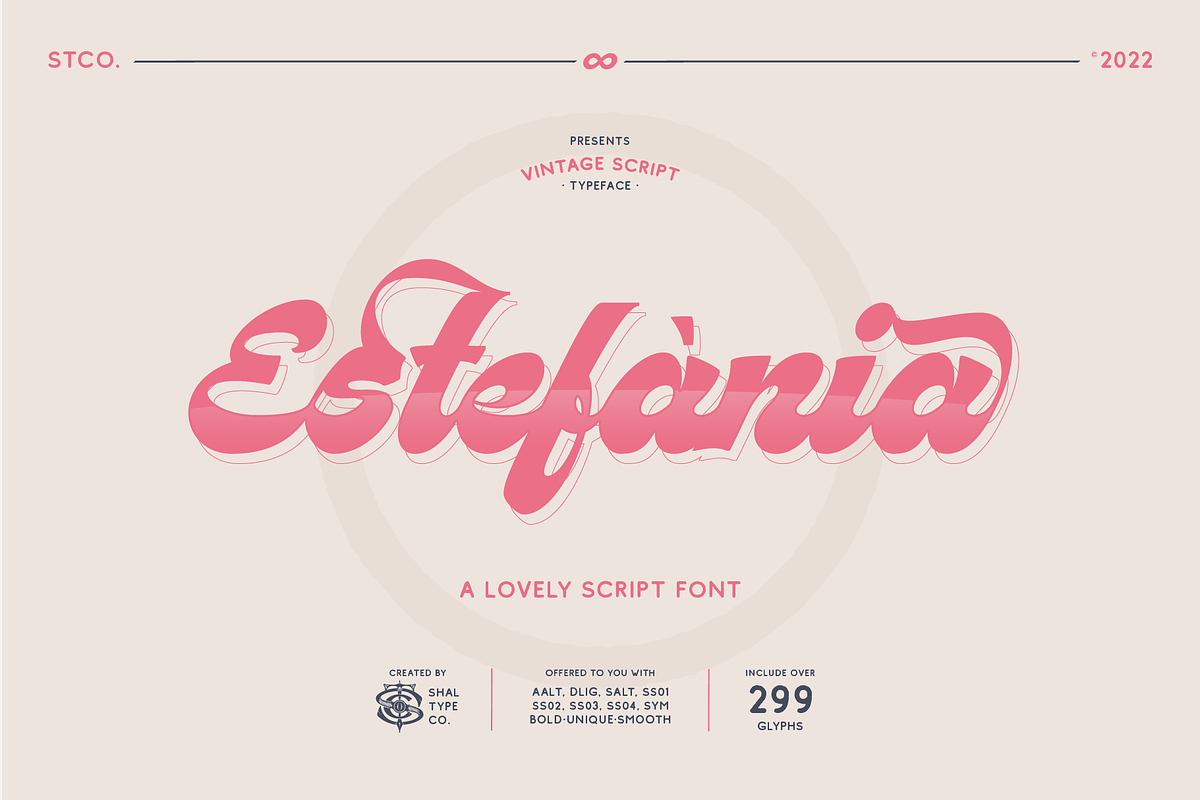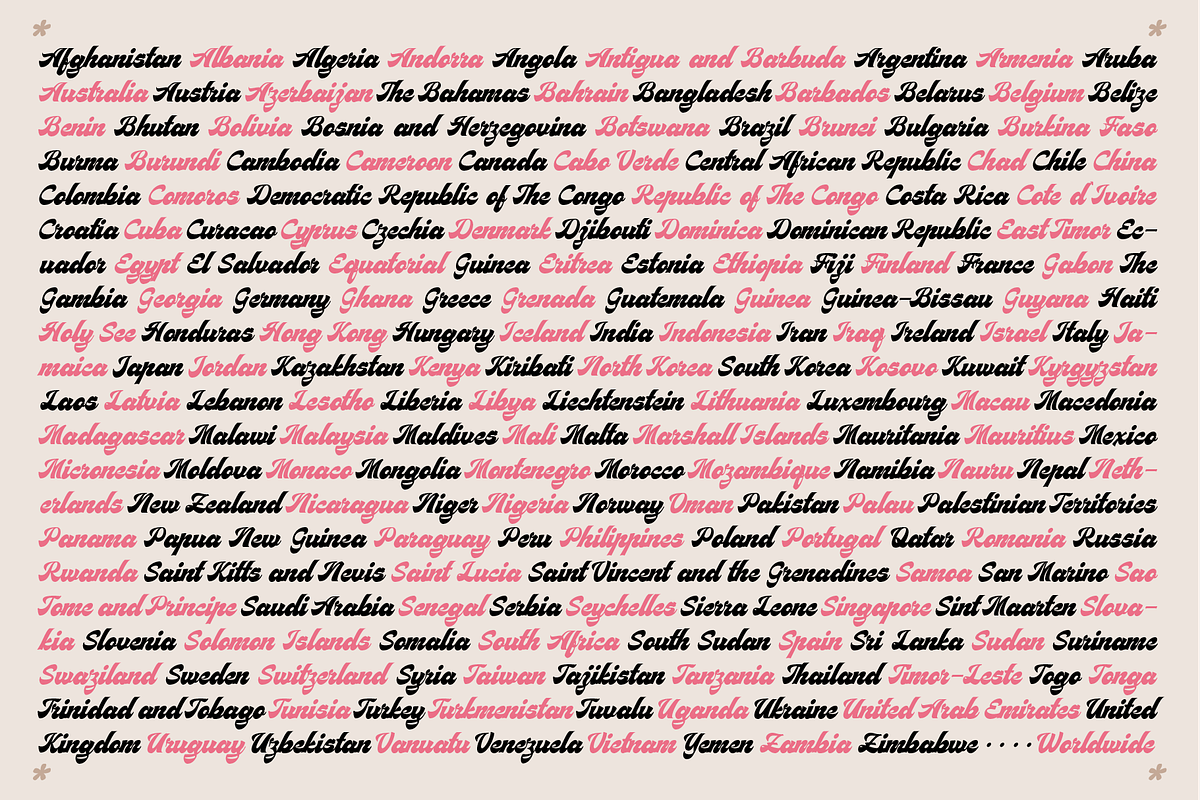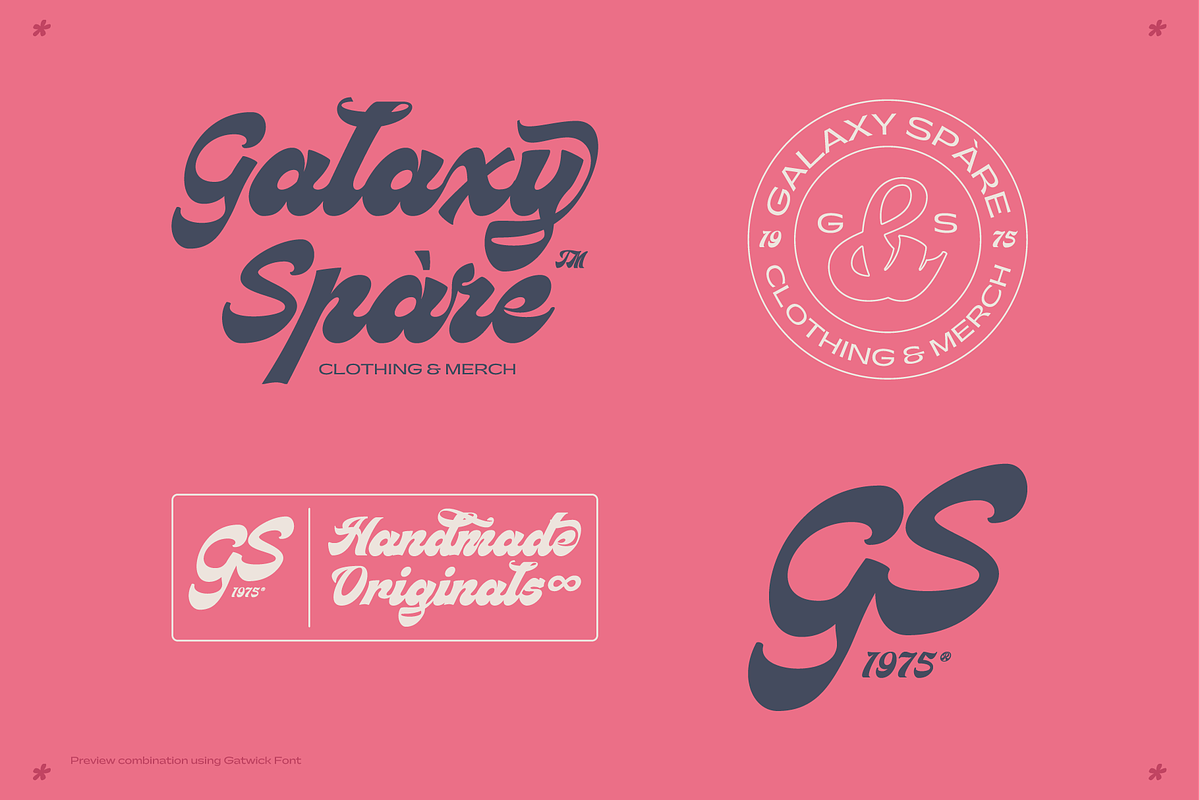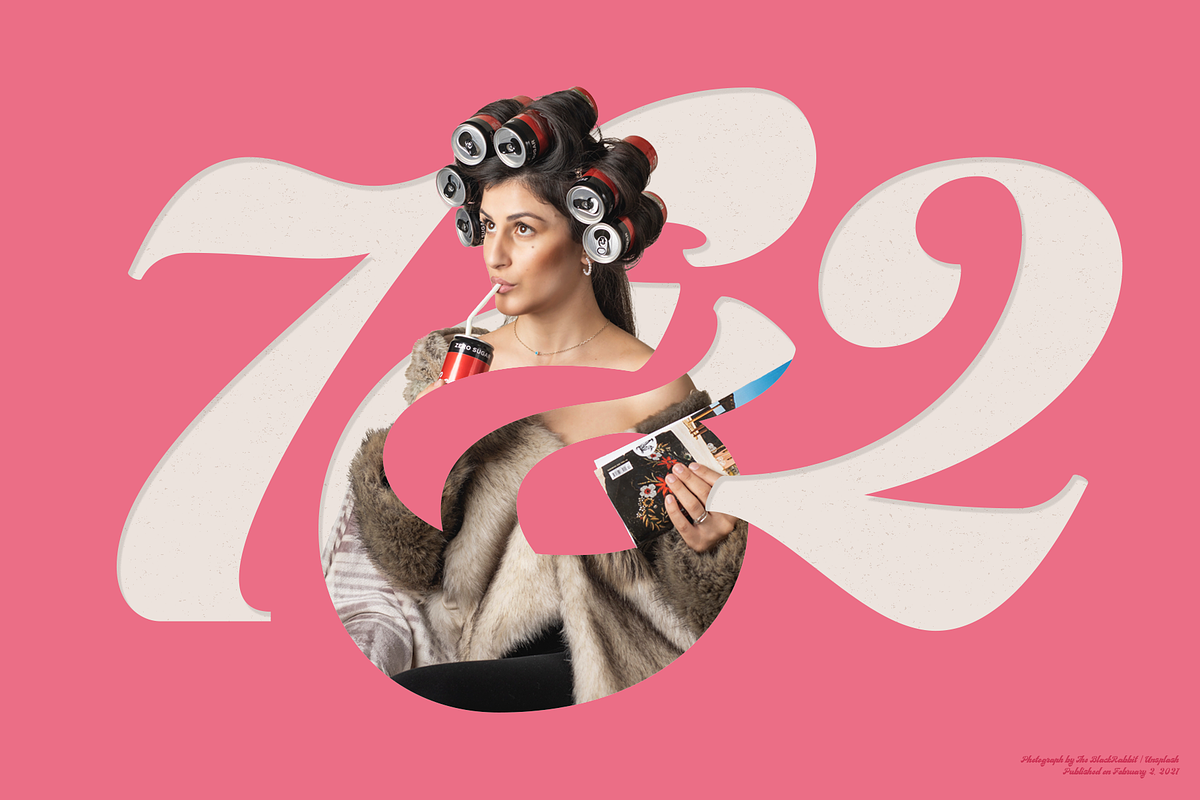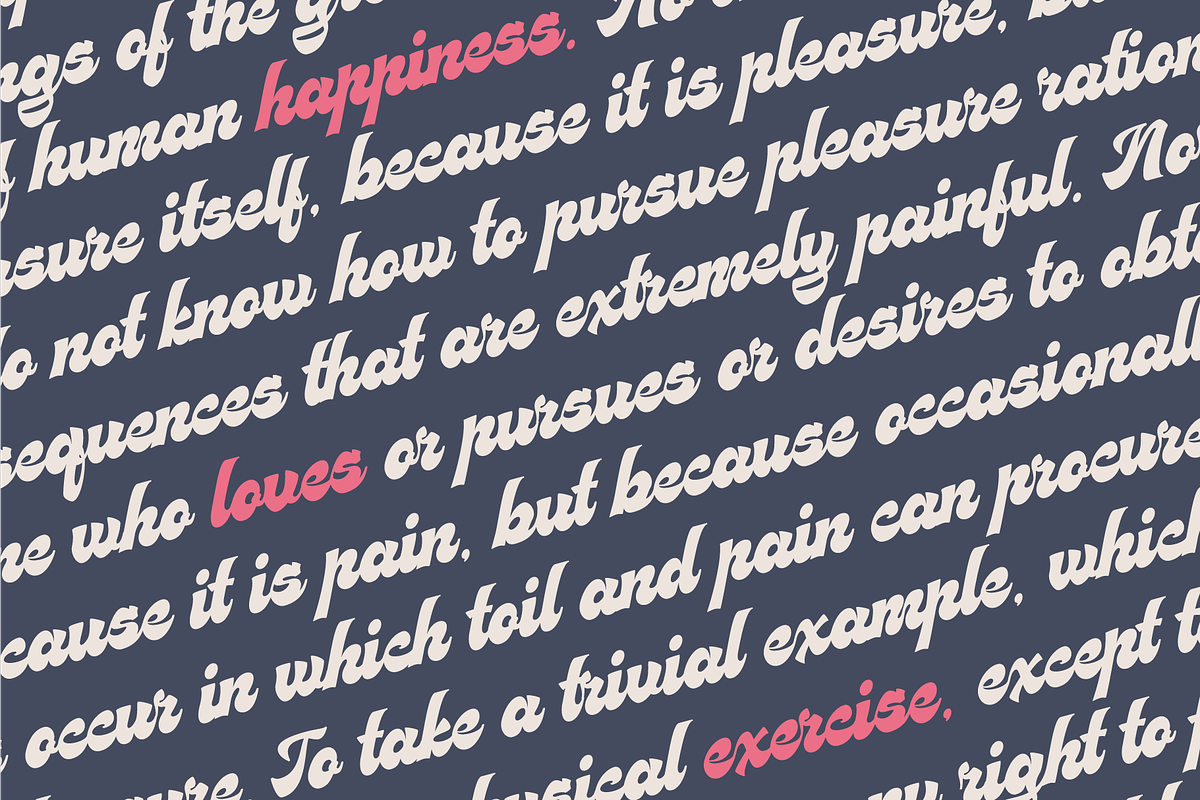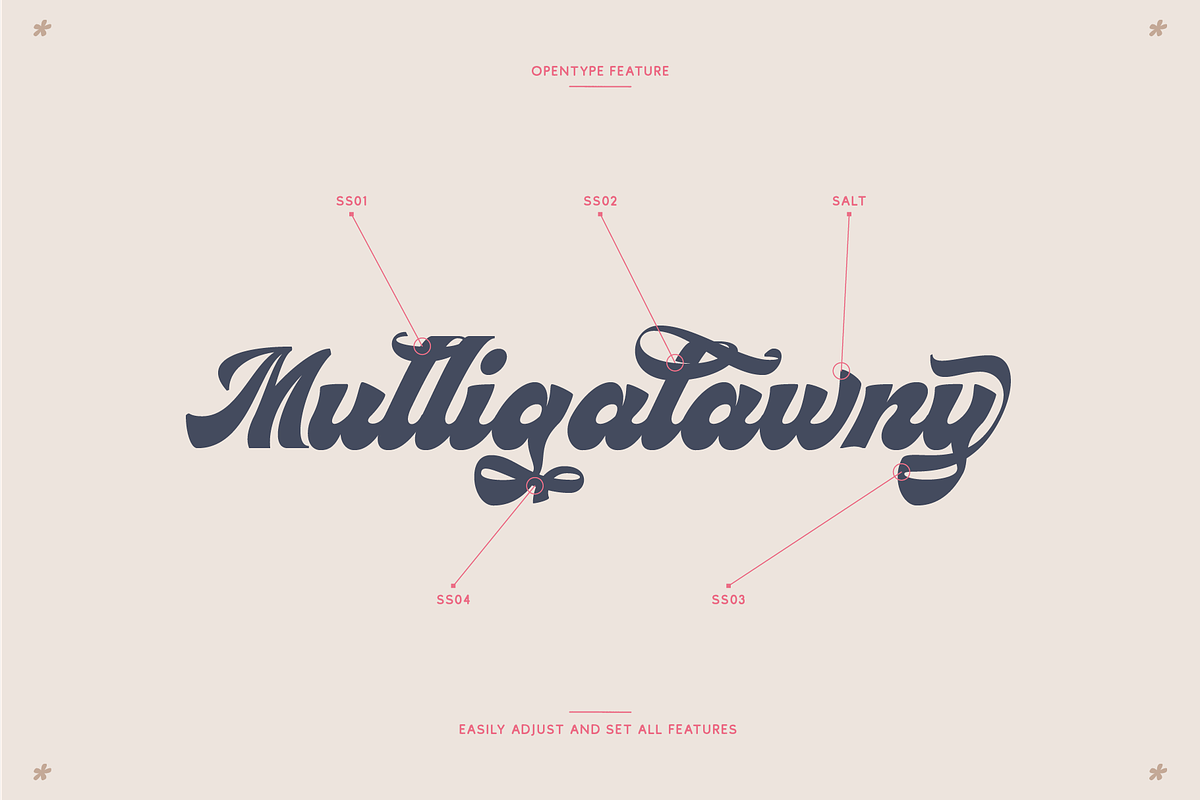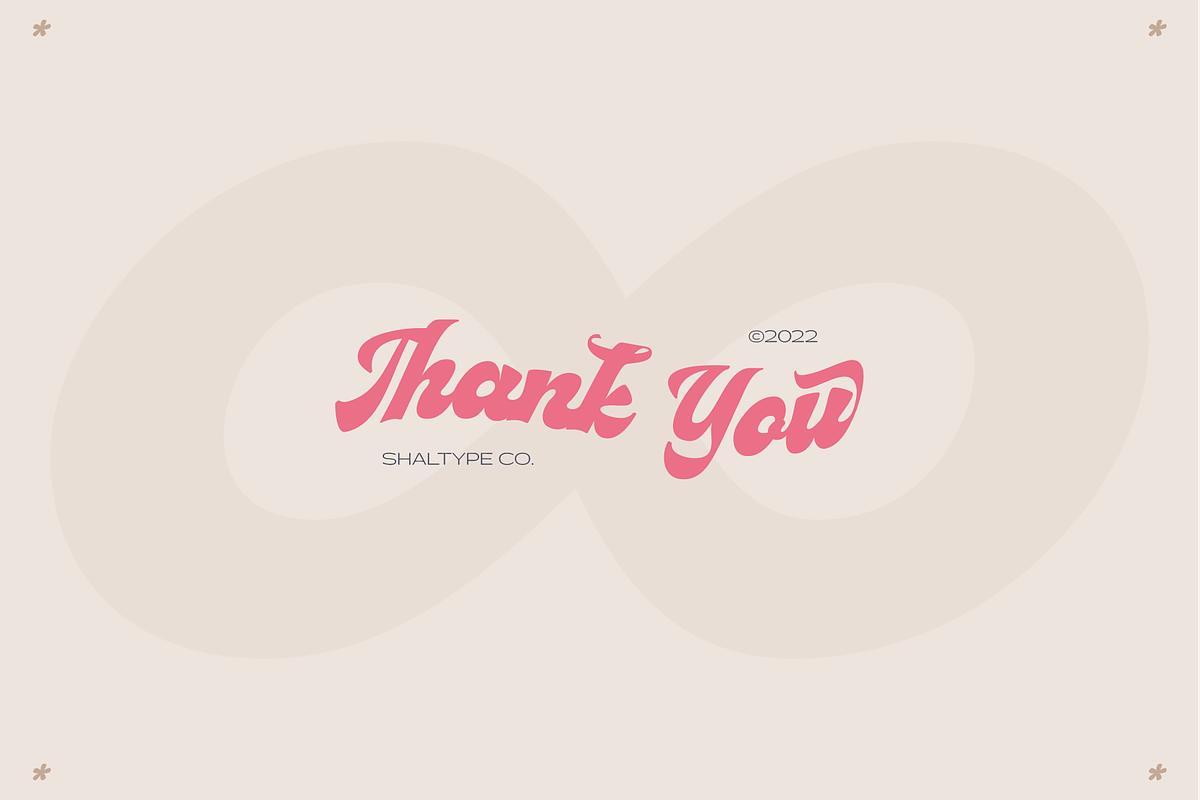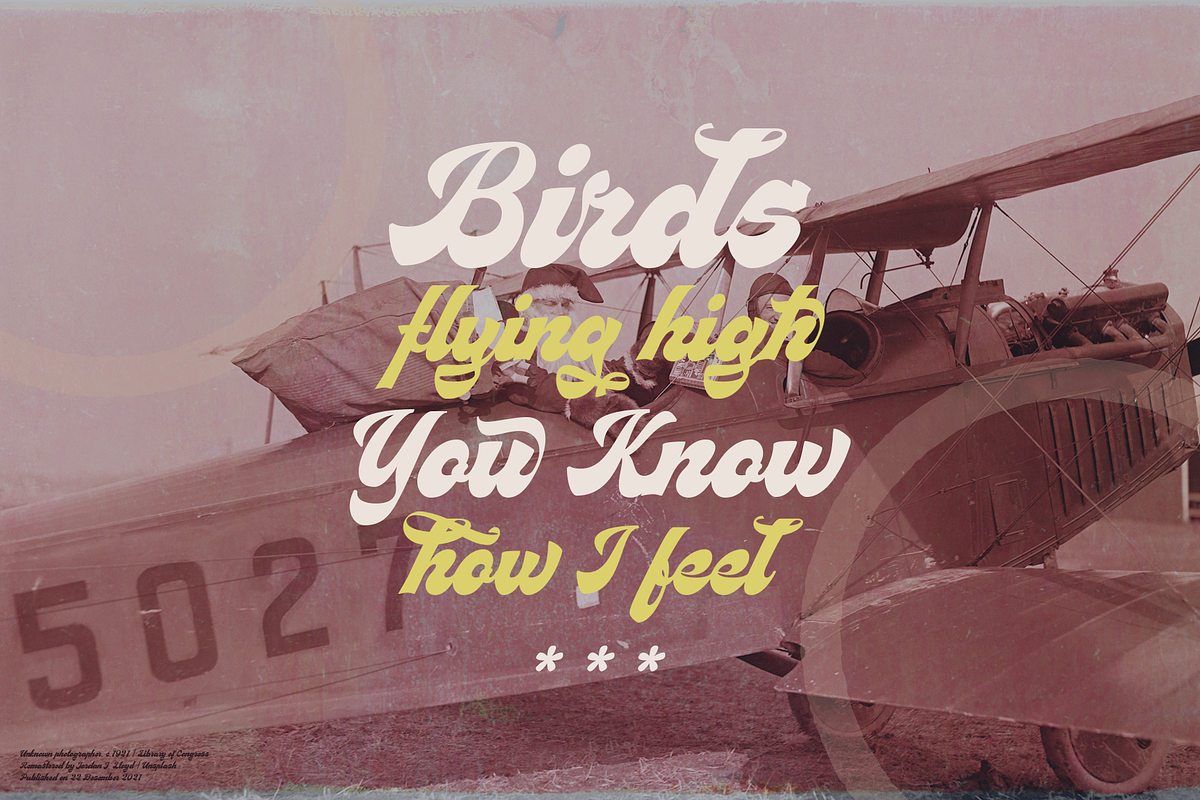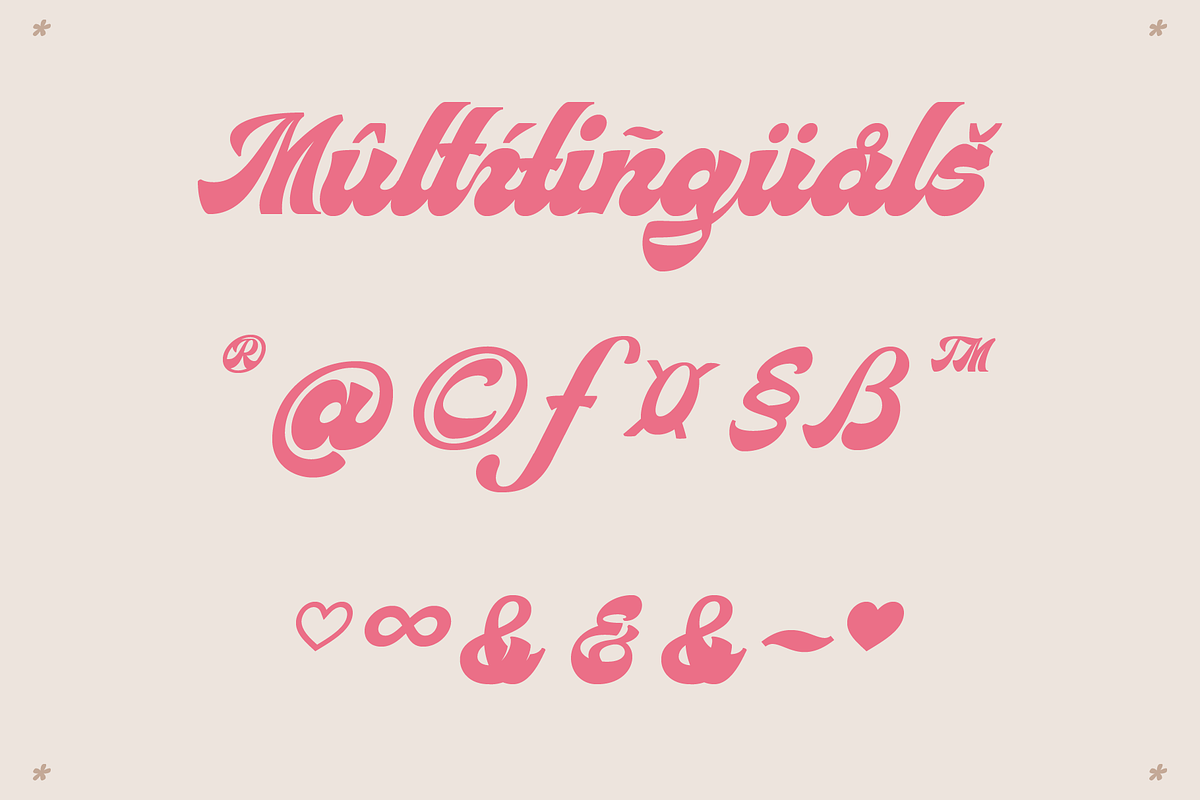
Estefania Bold Script Typeface
Estefania is based on Retro Bold Script Typeface that could fit any Graphic Project. Using bold and contrast strokes to get eye-catchy and smooth looking, this project is just born and will come with other styles and more glyphs in the future.
Drawn manually by hands, and reform into a clean Typeface. Natural stroke from original lettering. It can be used for Titles or even for writing.
- Over 299 Glyphs
- 11 OpenType features
- Support Multilingual languages